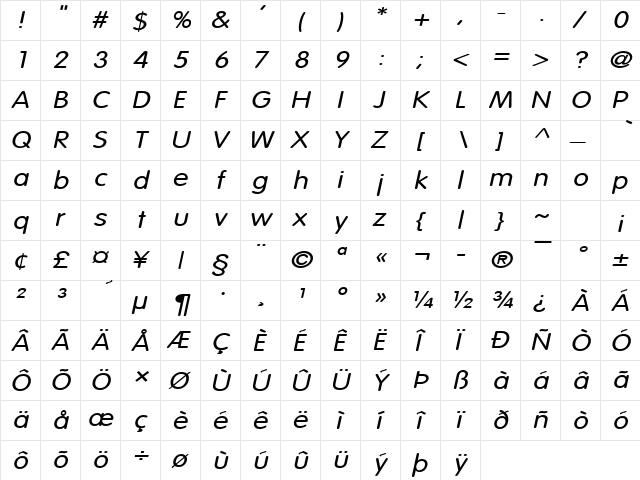
Vogel Wide Italic
Design Context for Vogel Wide Typeface
Vogel Wide is a composed and adaptable typeface that performs quietly and consistently across a wide range of design contexts. Its italic angle brings a sense of urgency and motion to the letterforms.
Pro Tip: Try Vogel Wide for annotation and caption copy alongside an upright companion — the contrast in angle creates a dynamic but ordered typographic system.